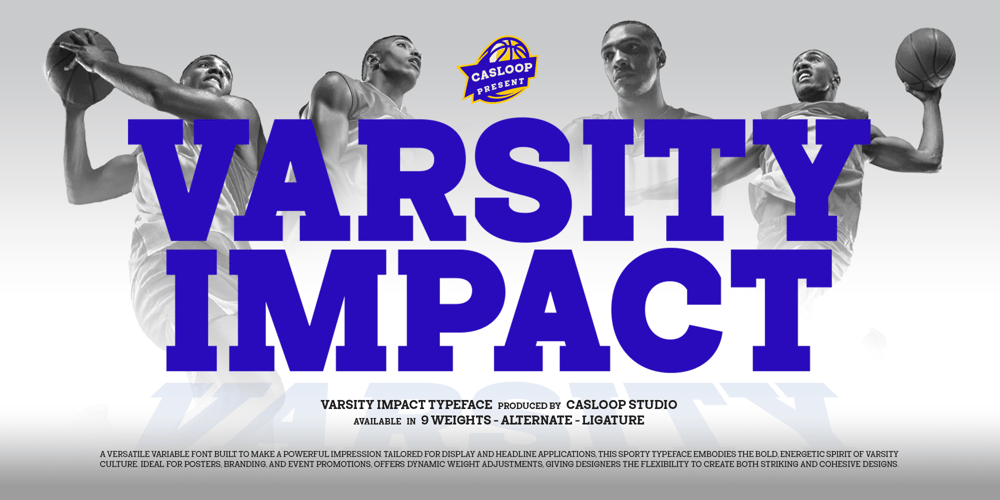
Varsity Impact
Varsity Impact font
Varsity Impact Font Family was designed by Wantara Putra and published by Casloop Studio. Varsity Impact contains 9 styles and family package options. Introducing Varsity Impact, the quintessential font for those who crave a blend of modern flair and dynamic versatility. This Sport Slab Serif typeface stands out with its distinctive, contemporary design, perfect for everything from university sports branding to athletic apparel.Varsity Impact offers a premium touch with its strong, legible characters, ensuring your text makes a memorable impression. Whether you’re designing campus posters, digital media visuals, or even packaging for automotive gear, this font delivers a quirky yet refined aesthetic that commands attention.Its unique combination of bold and blocky elements makes it ideal for a range of uses—from sporty jerseys and college branding to construction signage and motion graphics.Supported Languages: Bosnian, Catalan, Czech, Danish, German, English, Spanish, Estonian, Finnish, French, Proxima, Roboto, Bergen, Wild, Irish, Mango, BebasCroatian, Hungarian, Icelandic, Italian, Lithuanian, Tan, Latvian, Maltese, Dutch, Norwegian, Polish, Haas, Portuguese, Romanian, Slovak, Slovenian, Albanian, Swedish, Turkish.The font’s varied weights, from Thin to Black, and its adaptable font family and variable font options, provide you with endless creative flexibility.Elevate your project with the modern, Neo Classic style of Varsity Impact. Embrace its strong, athletic charm and let your text stand out with originality and impact.This Font seamlessly integrates with design applications like Adobe Illustrator, Adobe Photoshop, Corel Draw, Affinity Designer. However, it’s worth noting that its accessibility extends beyond traditional platforms; it can also be utilized on web-based applications such as Kittl, Canva, Artboard Studio, and more.Cheer from Casloop Bali! May this font bring vibrancy to your designs!